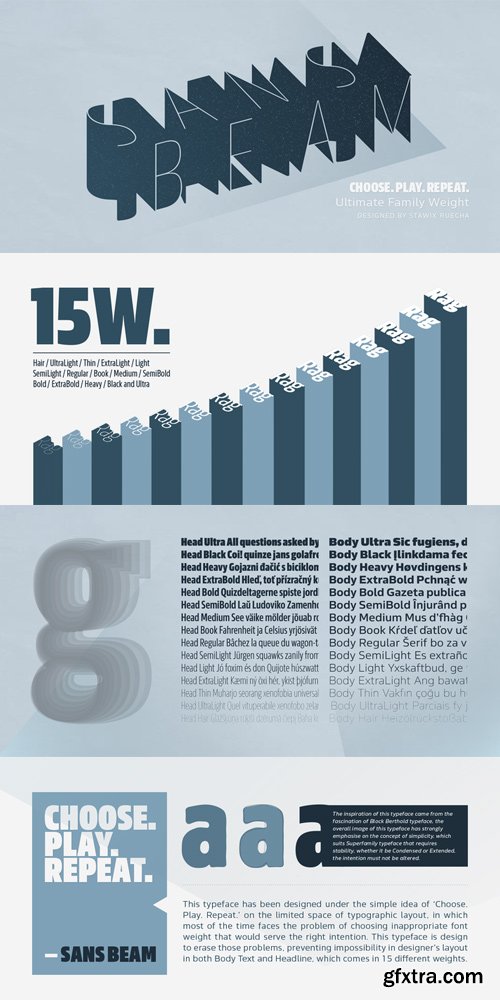
This typeface has been designed under the simple idea of ‘Choose. Play. Repeat.’ on the limited space of typographic layout, in which most of the time faces the problem of choosing appropriate font weight that would serve the right intention. This typeface is design to erase those problems, preventing impossibility in designer’s layout in both Body Text and Headline, which comes in 15 different weights.